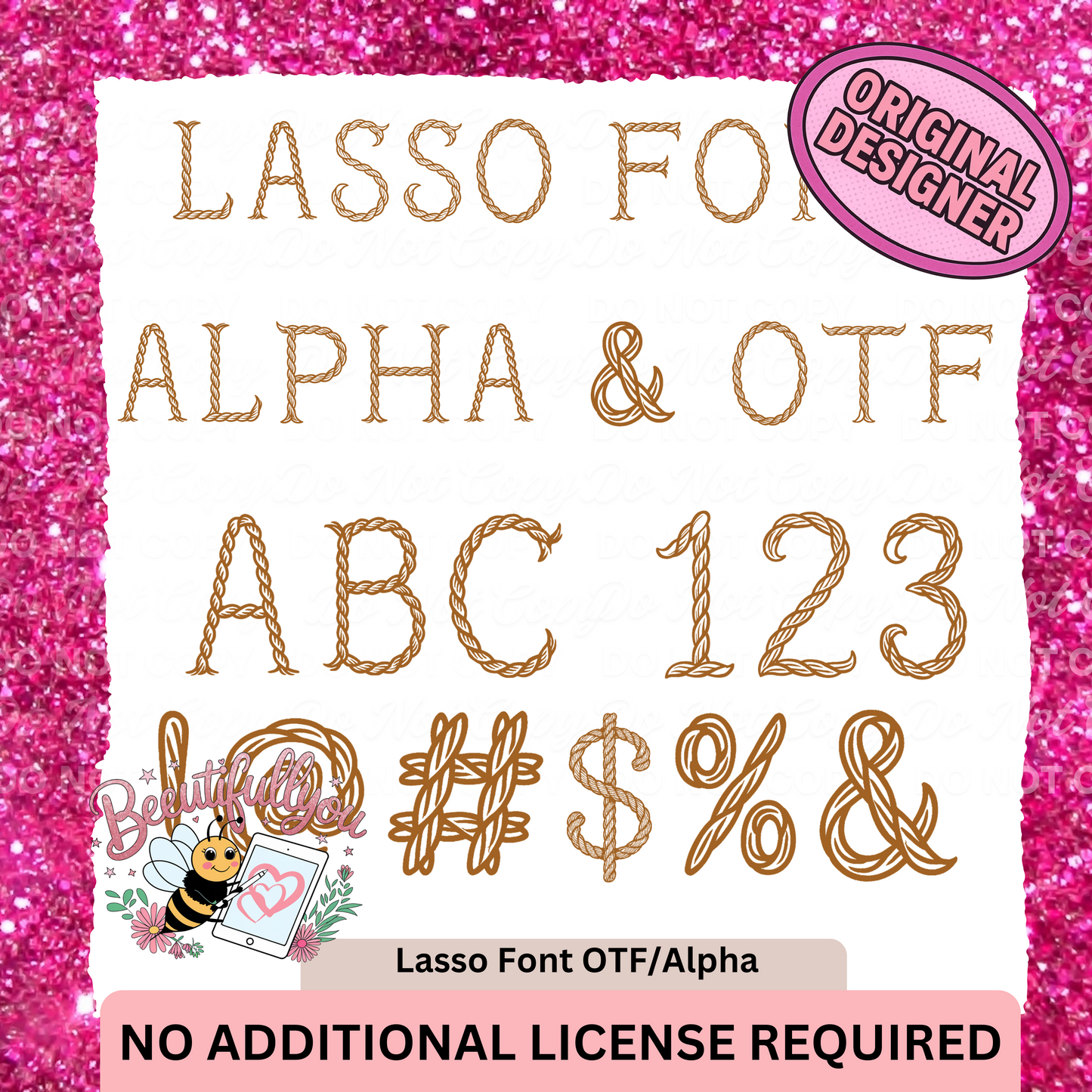
Lasso Rope Font | Western Alpha + OTF Download
Wrangle up some creativity with this bold and fun Lasso Rope Font — the perfect blend of rustic cowboy flair and Western charm 🤠🐎. This download includes both OTF font file and high-quality alpha clipart elements, making it super versatile for all your design needs!
Great for rodeo-themed merch, country weddings, barn signs, Western party invites, and more!
• A–Z Uppercase Letters
• 0–9 Numbers
• Common Symbols (! @ # $ % &)